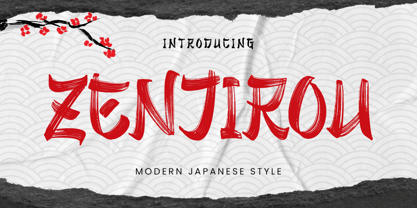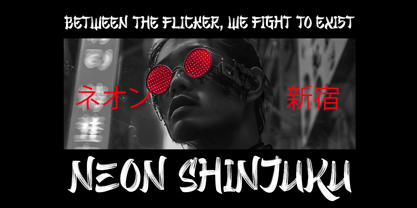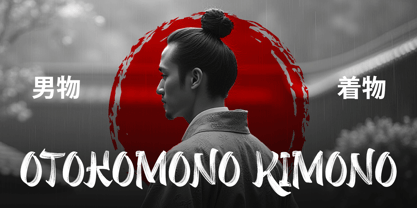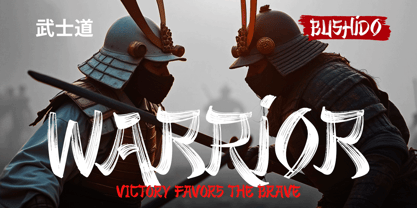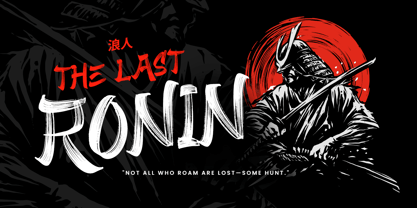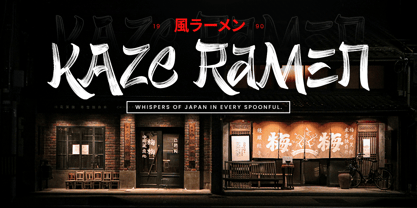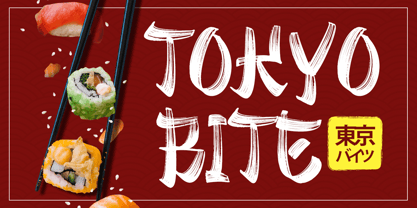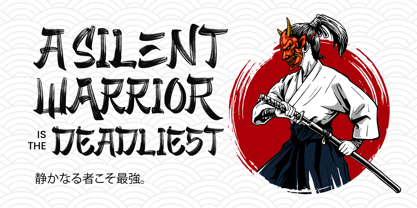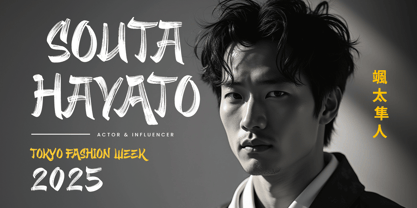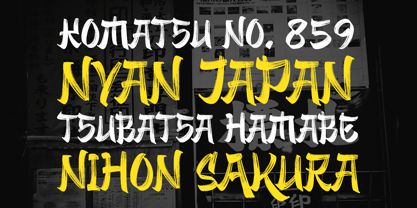
Zenjirou
by Arterfak Project
The Zenjirou Font Family was designed by Ahmad Ramzi Fahruddin and published by Arterfak Project. Zenjirou contains 1 styles.
Introducing Zenjirou—a font inspired by Japanese lettering. Designed with a natural brush style, it captures the essence of traditional Japanese calligraphy. This all-caps font features unique shapes and special characters to give your designs an authentic Japanese touch!
Zenjirou is perfect for display purposes, especially for posters, Japanese food branding, merchandise, logos, short quotes, movies, games, and apparel. This font is Fully PUA encoded and equipped with multilingual support!